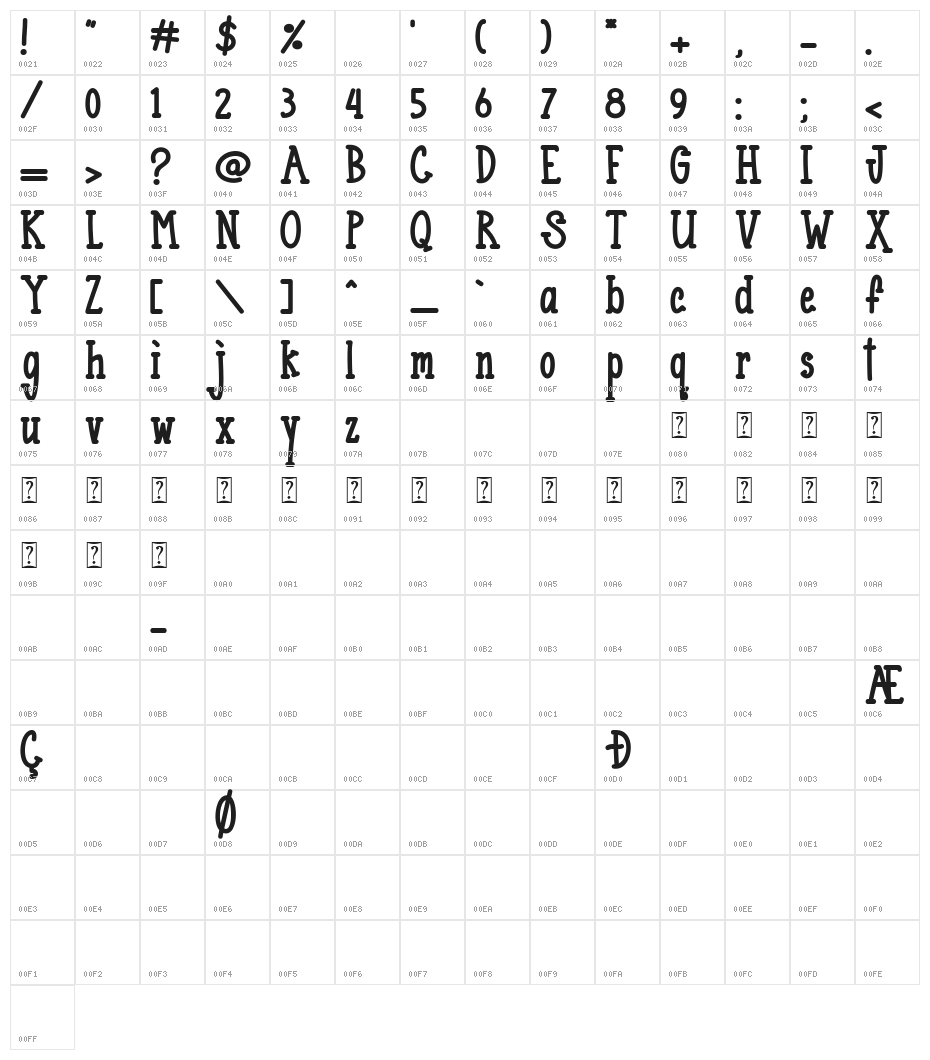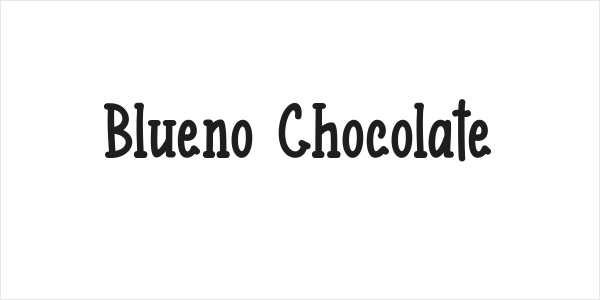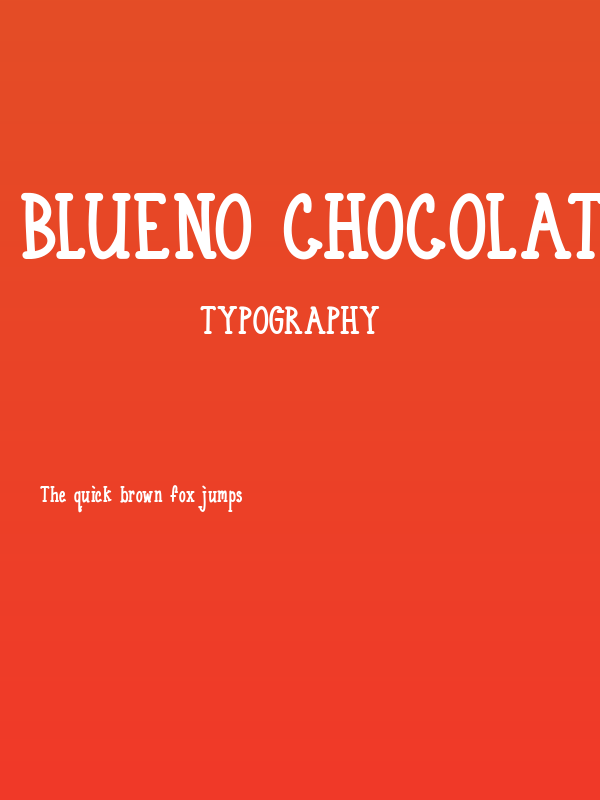
Blueno Chocolate Font
Blueno Chocolate Description
This font features a playful and whimsical style with a handwritten appearance. The characters are bold and rounded, giving them a friendly and approachable feel. The uppercase letters are slightly taller than the lowercase, maintaining a consistent width throughout. The numerals and special characters follow the same design principles, ensuring uniformity across all glyphs. The strokes are thick, with minimal contrast, enhancing readability while retaining a casual aesthetic. This font is ideal for projects that require a touch of fun and creativity.
Overall StylePlayful
Use CaseHeadlines, Logos, Casual Text
Proposed ProjectsIdeal for children's books, greeting cards, playful branding, and casual invitations.